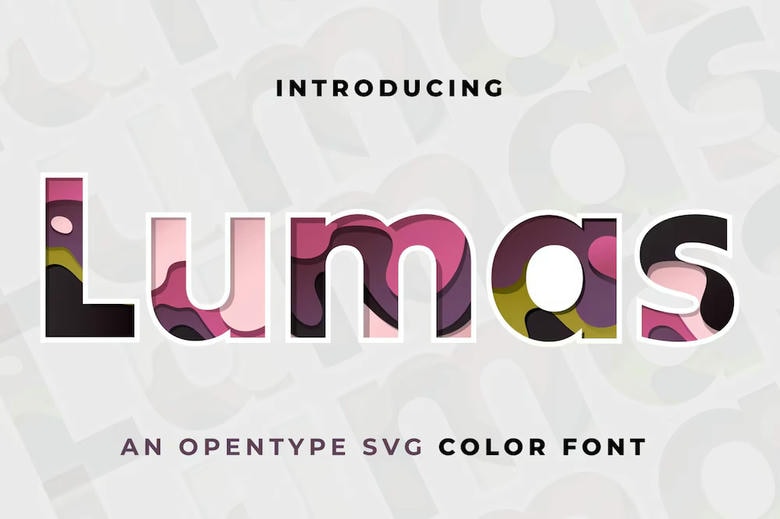
Lumas Font
Lumas is a dynamic, layered typeface with a striking 3D paper-cut effect. Its carefully stacked letterforms create depth and dimension, mimicking the art of layered paper. Perfect for bold headlines, creative branding, and eye-catching posters, Lumas brings a tactile, handcrafted feel to digital and print designs, making every word pop with precision and artistry
Lumas Sans Serif Font